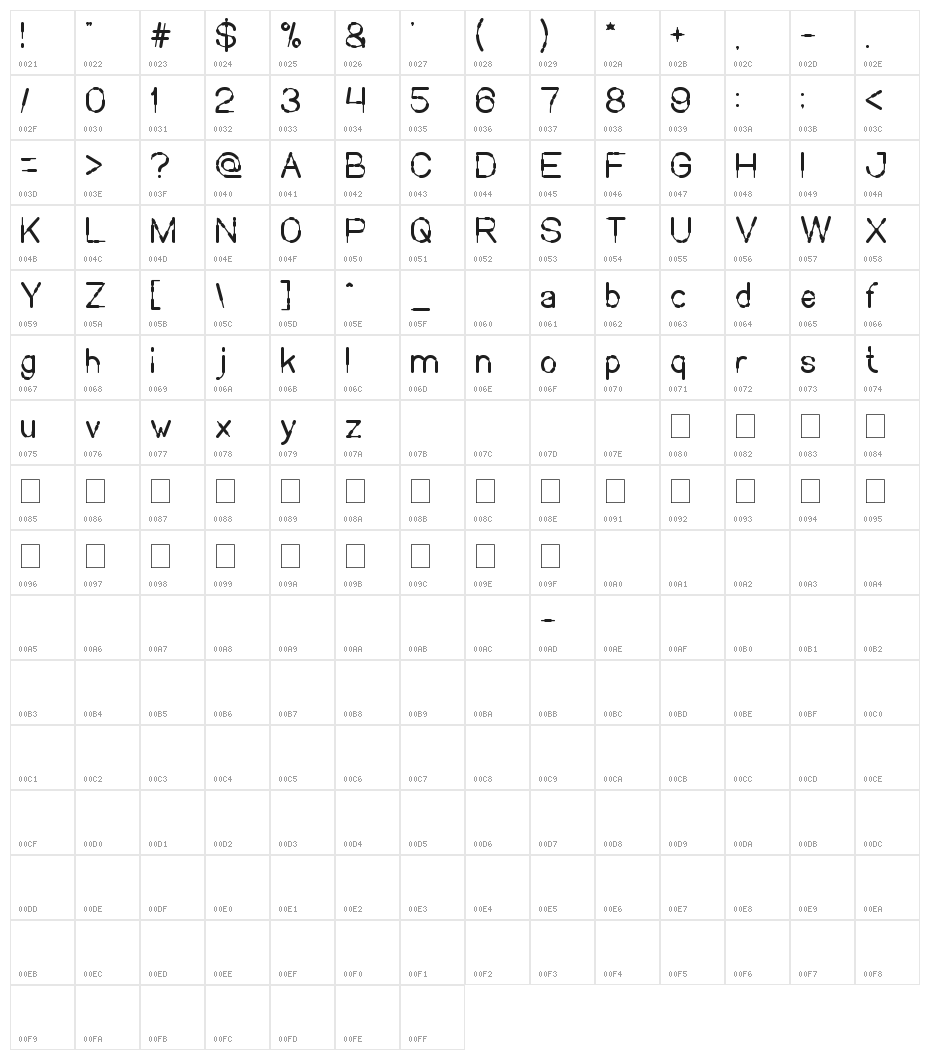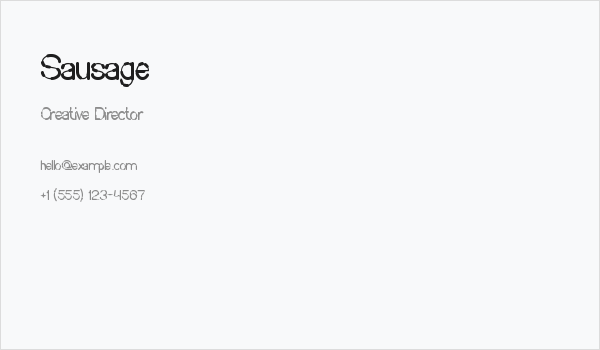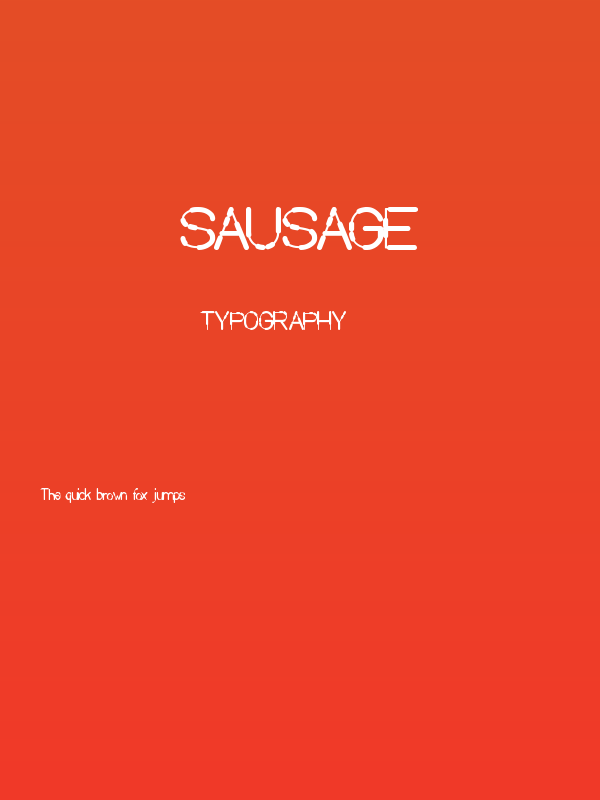
Sausage Font
Sausage Description
This font features a unique and playful design with rounded, sausage-like forms that give it a distinct and whimsical appearance. The characters are bold and slightly irregular, with a consistent thickness throughout, creating a cohesive look. The uppercase and lowercase letters maintain a uniform style, while the numbers and special characters complement the overall aesthetic. The font's playful nature makes it suitable for creative and informal projects, adding a touch of fun and personality to any design.